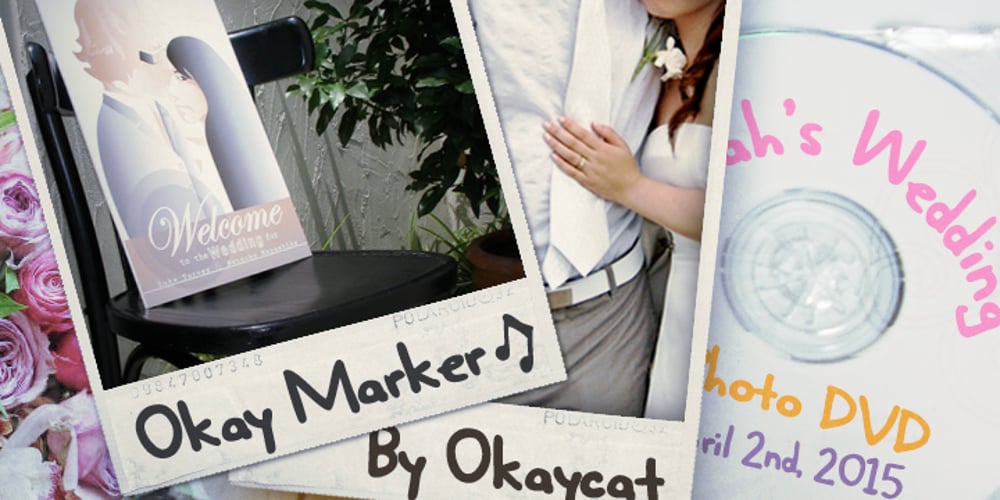
Okay Marker
Okay Marker font
Okay Marker Font Family was designed by Natsuko Hayashida and published by Okaycat. Okay Marker contains 1 styles and family package options. Okay Marker is a natural hand-printed font, designed to appear as if it was written by wide marker. A clean legible style yet friendly & fun. Okay Marker features extended characters, containing West European diacritics & ligatures, making it suitable for international environments & publications.